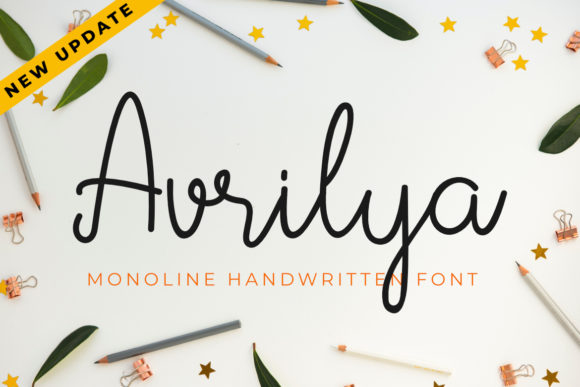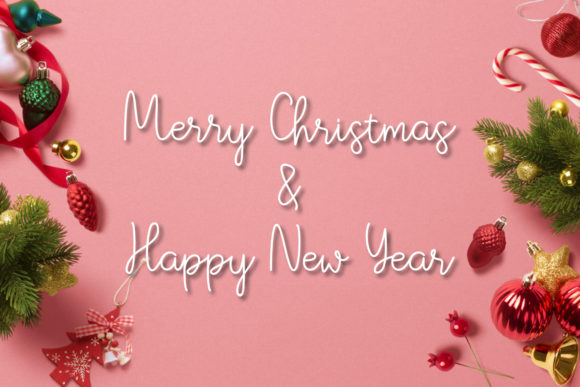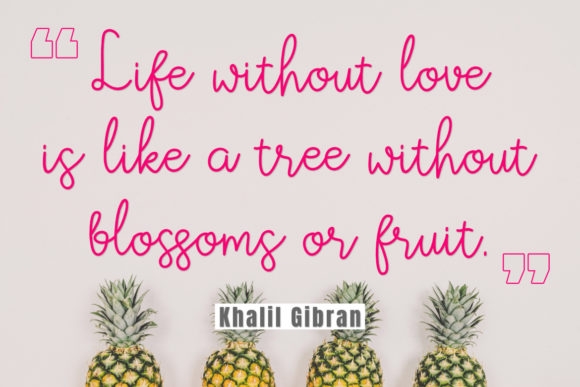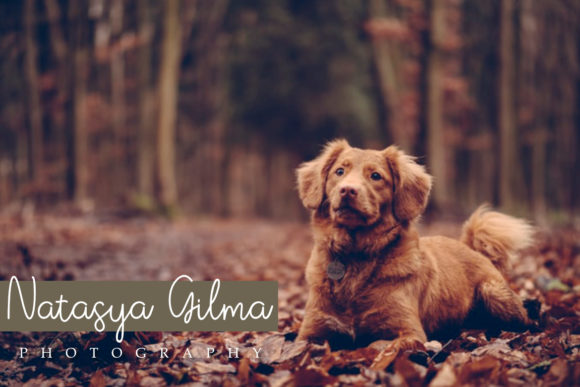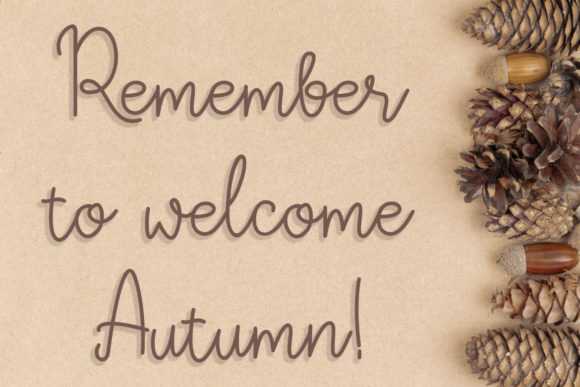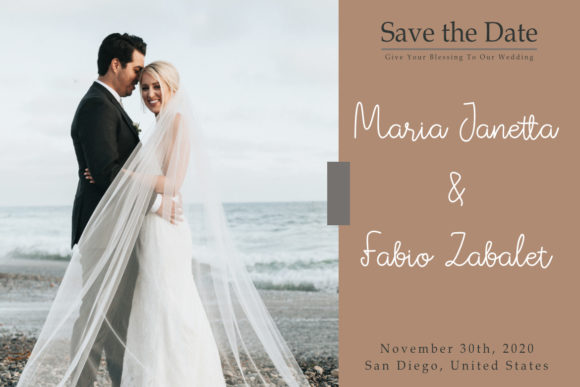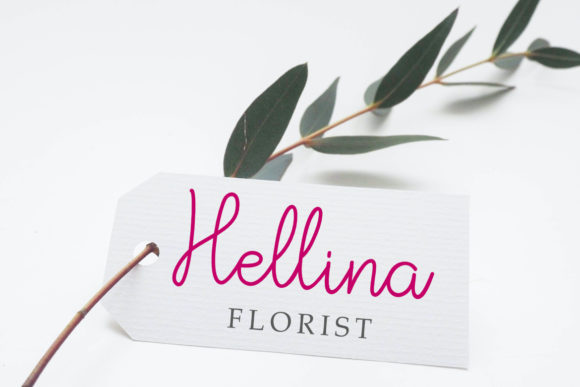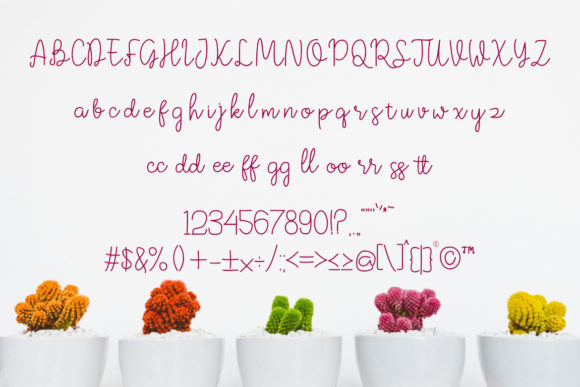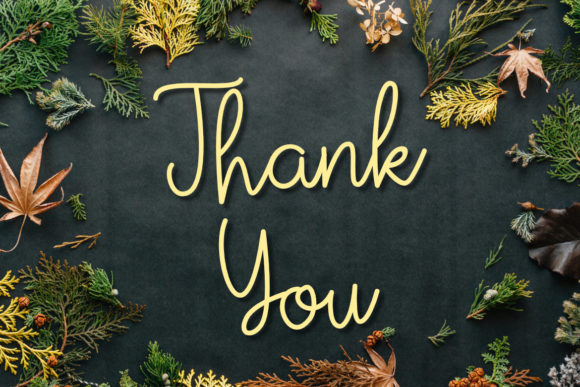
Avrilya Font
About Avrilya Font
Avrilya is a modern, unique and lovely script font. Fall in love with its authentic details, and turn any design project into a true stand out!